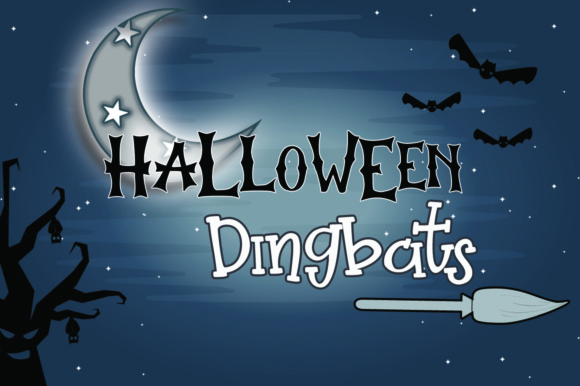
Prepare to be spellbound by the Halloween Dingbats Font – a devilishly delightful dingbat font family that will cast a wicked charm on all your Halloween designs!
Unleash your inner ghoul with over 100 spine-tingling icons, lovingly crafted to capture the essence of this hauntingly hilarious holiday. From eerie haunted houses and mischievous black cats to giggling pumpkins and wicked witches, every icon in this font is a masterpiece of spooky delight.
With the Halloween Dingbats Font, you'll have the power to make your Halloween projects come alive with a touch of spooky magic. It's the perfect font for creating invitations, designing party decorations, or even adding a touch of Halloween cheer to your social media posts.
Let your imagination run wild and let the Halloween Dingbats Font guide you through a journey of frightful fun. It's the perfect choice for anyone looking to add a touch of spooky sophistication to their Halloween designs. So gather your goblins, grab your candy corn, and let the Halloween Dingbats Font work its wicked magic!